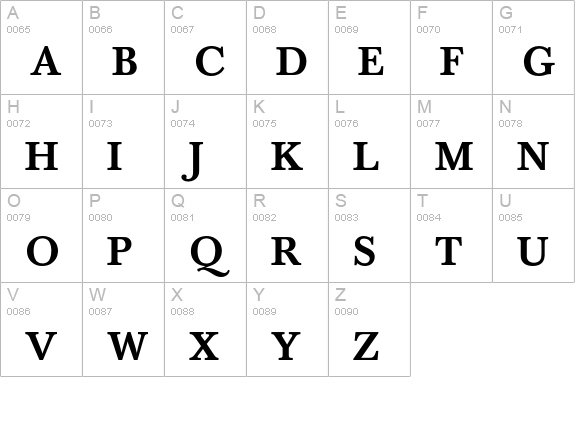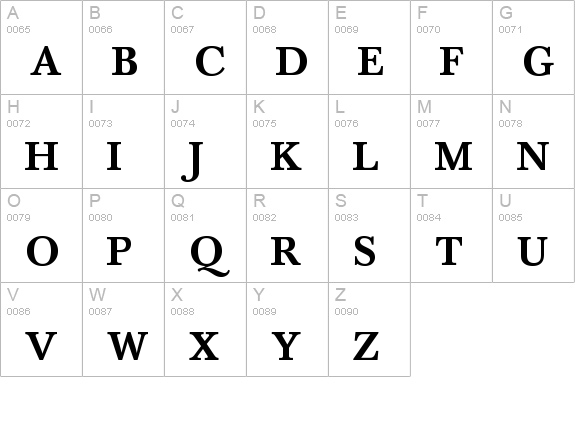
Baskerville Expert Medium OsF Font Details
Baskerville Expert Medium OsF is a balanced, medium-weight variant in the Baskerville typeface family \xE2\x80\x94 well suited to sub-headlines, navigation, and balanced editorial work.
Baskerville Expert Medium OsF font is a timeless and elegant typeface that exudes sophistication and class. Its perfectly balanced letterforms and exquisite detailing make it a versatile choice for a wide range of design projects. The medium weight of this font strikes the ideal balance between readability and impact, making it suitable for both body text and headlines. What sets Baskerville Expert Medium OsF font apart is its expertly designed old-style figures, which add a touch of vintage charm to any project. Whether you're working on a classic print design or a modern digital project, this font is sure to elevate your work to the next level. The best part? Baskerville Expert Medium OsF font is available for free download at FontsMarket.com. So go ahead and add this stunning typeface to your collection today and bring a touch of timeless elegance to your designs.